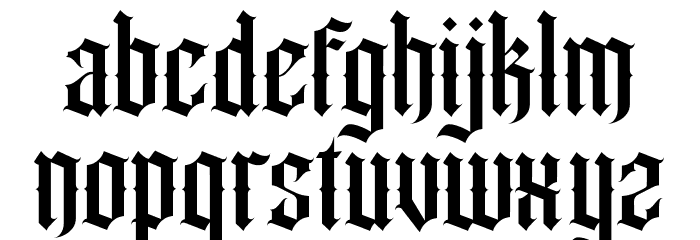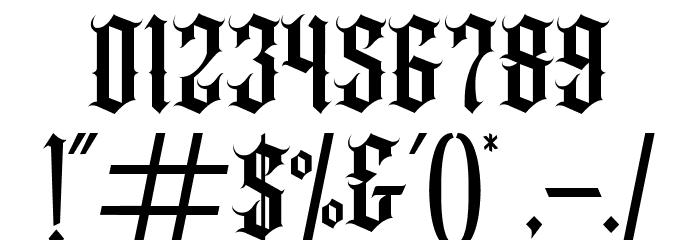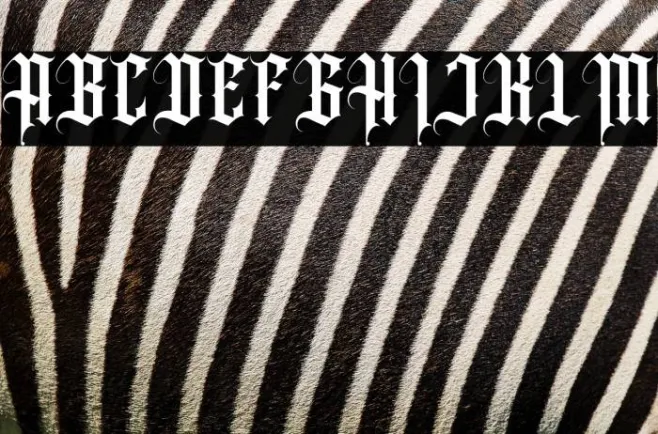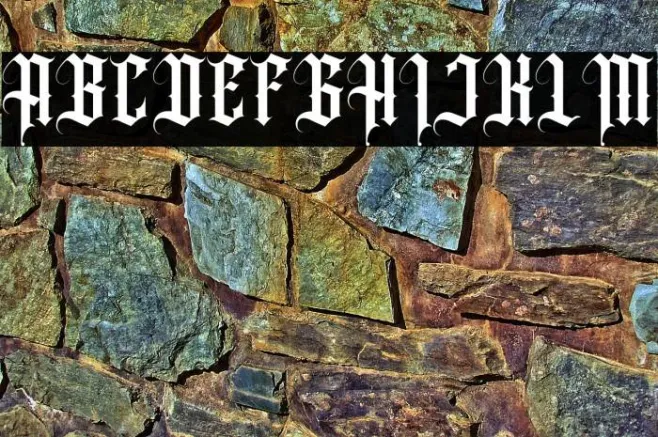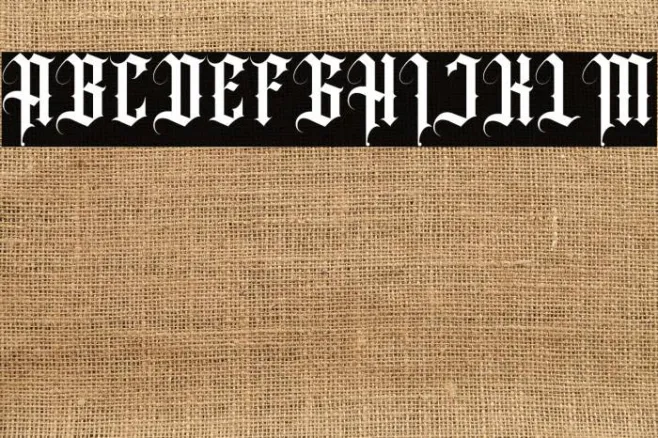
Angel wish Regular Font
This font exhibits a classic blackletter style, characterized by its intricate and ornate design. The letters are bold and angular, with sharp edges and pointed serifs that give it a medieval, gothic appearance. The uppercase and lowercase letters maintain a consistent style, with the uppercase being more elaborate. The numbers and special characters follow the same aesthetic, ensuring uniformity across all glyphs. This font is highly decorative, making it suitable for projects that require a historical or dramatic flair.
A bold, gothic blackletter font with intricate, angular designs.
- Font: Angel wish Regular
- Proposed Projects: Ideal for use in historical documents, gothic-themed designs, book covers, posters, and branding that requires a dramatic and vintage touch.
- Category: Blackletter
- Overall Style: Vintage
- Use Case: Logos, Headlines, Decorative text